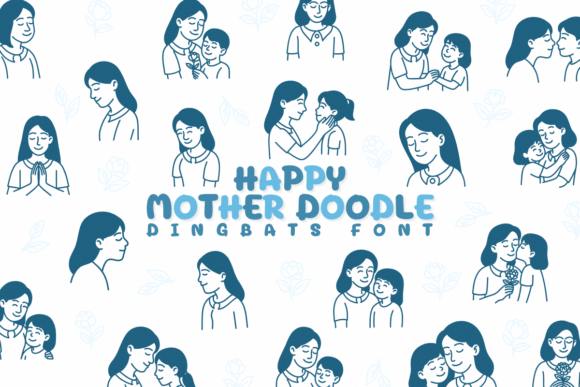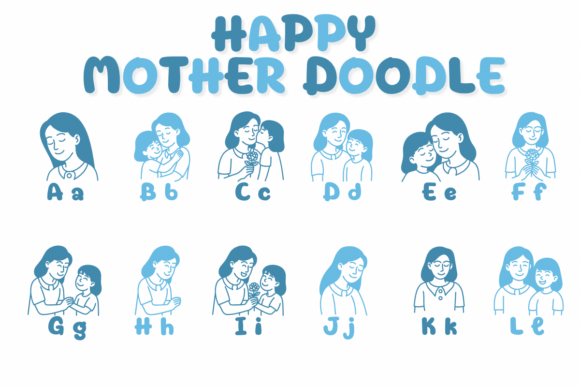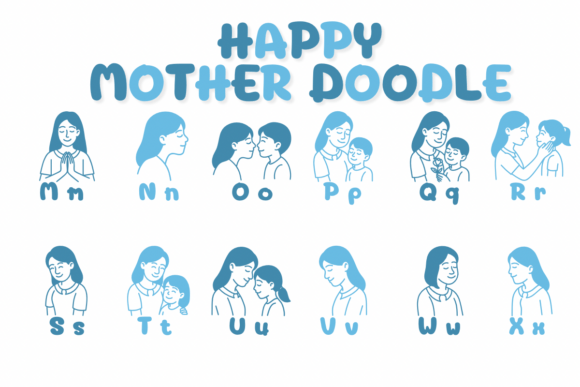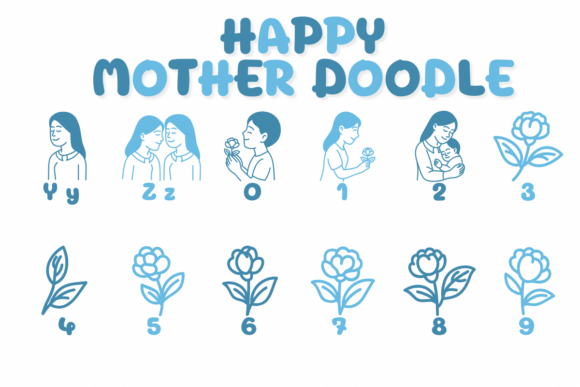
Happy Mother Doodle Font
About the Happy Mother Doodle Font
Welcome to the world of Happy Mother Doodle Font, a typeface that will inspire your next great project. Happy Mother Doodle Font is a heartfelt collection of hand-drawn dingbats celebrating motherhood. Each icon features sweet, tender moments between moms and kids—perfect for Mother’s Day cards, scrapbooking, family branding, or warm social media visuals. This font turns every design into a visual hug.
Its playful, hand-drawn nature makes it ideal for projects requiring a touch of warmth and intimacy. Consider using it for children’s books, greeting cards beyond Mother’s Day, branding for family-oriented businesses, or social media graphics emphasizing connection. Avoid using it for large blocks of text or formal documents; its informal style is unsuitable for body copy or UI elements.
Pairing it with a clean sans-serif like Open Sans for body text creates a nice contrast, balancing the font’s whimsy with readability. For a more sophisticated look, consider pairing it with a delicate serif like Lora. Avoid pairing it with overly geometric or heavily stylized fonts, as this may clash with its hand-drawn aesthetic.
Happy Mother Doodle Font exudes a friendly, approachable personality. Its charm lies in its ability to evoke positive emotions and create a sense of comfort and nostalgia. This makes it best suited for brands and projects that prioritize human connection and heartwarming sentiments.
Happy Mother Doodle Font Usage Examples
Happy Mother Doodle Font Example